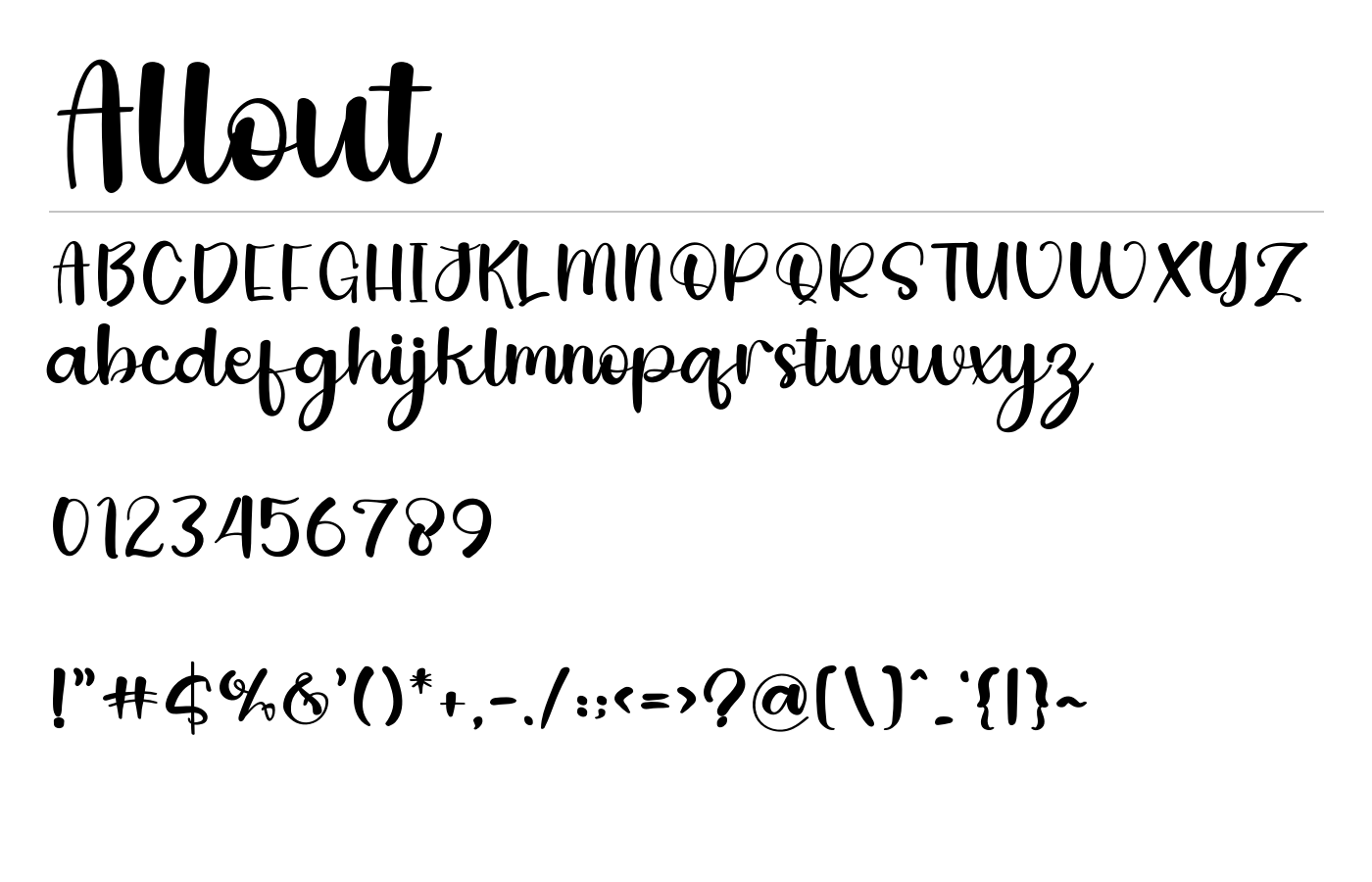
Allout Font is a lively and friendly script typeface with smooth, rounded strokes and a casual handwritten feel. Its moderate weight and playful letterforms make it ideal for creative and approachable branding, invitations, and social media graphics where a personal and warm touch is desired. This font works well in headlines and display text, adding charm and personality to various design projects.
Allout Font
About Allout Font